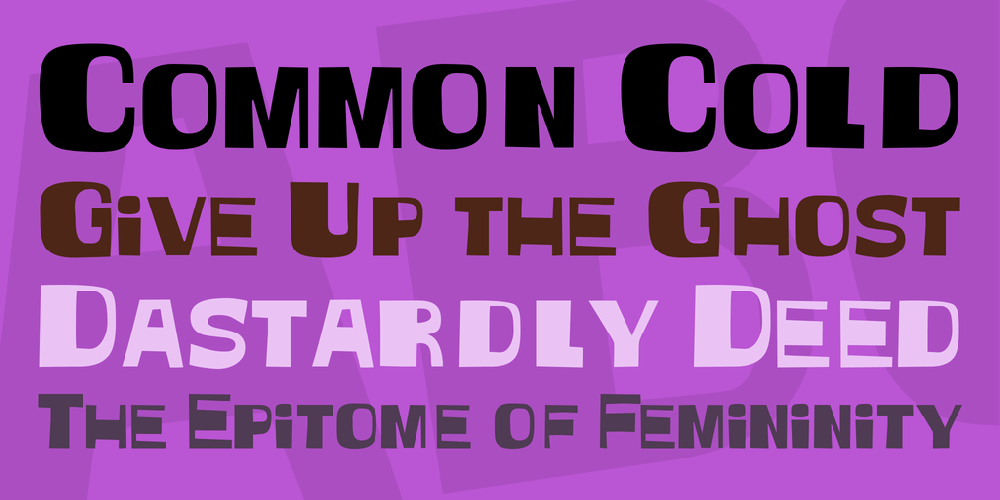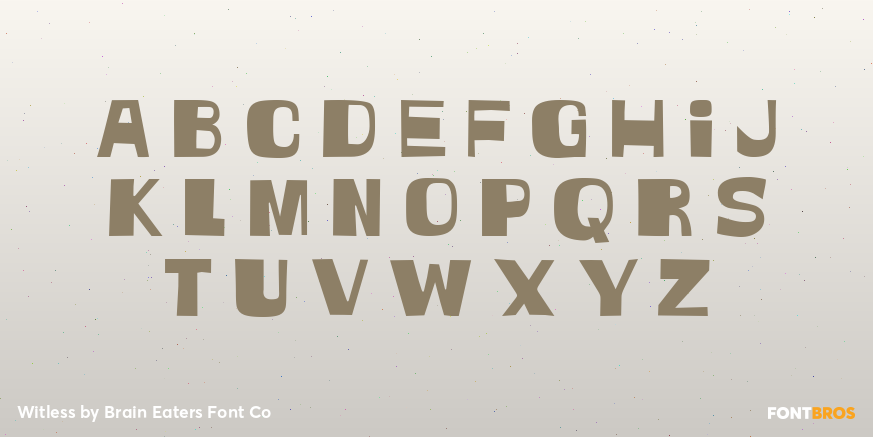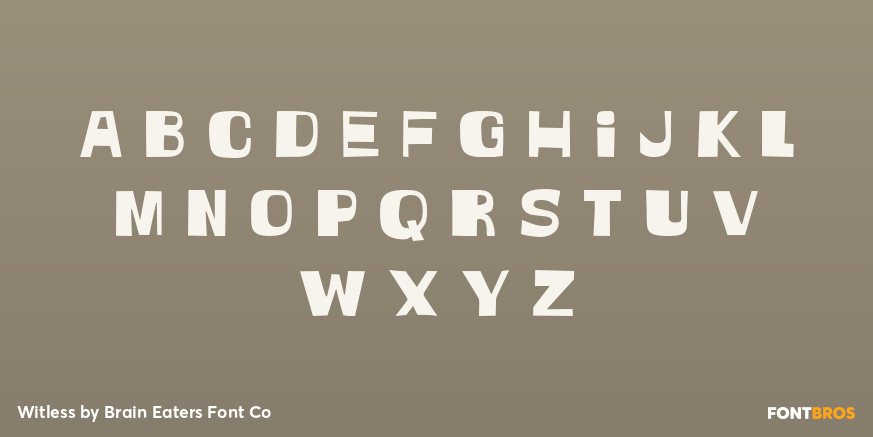
Witless
Font Family by Brain Eaters Font Co
Witless is a playful modern sans serif with a fun, offbeat personality. Its casual, wacky look gives words an easygoing punch, making it a strong choice when you want type that feels lighthearted, contemporary, and a little unconventional.
This family includes 1 font style from Brain Eaters Font Co. Witless is especially well suited to display use where character matters—think posters, social graphics, quirky branding, packaging, or other creative work that benefits from a relaxed, attention-grabbing voice.